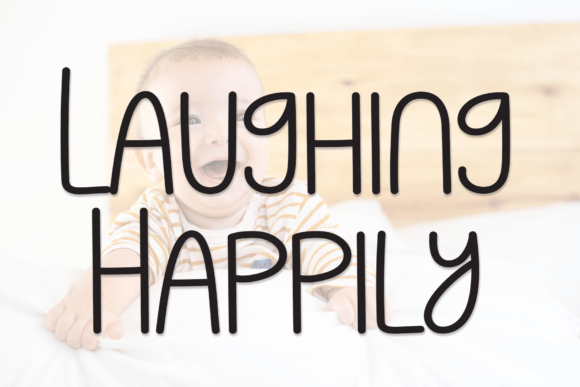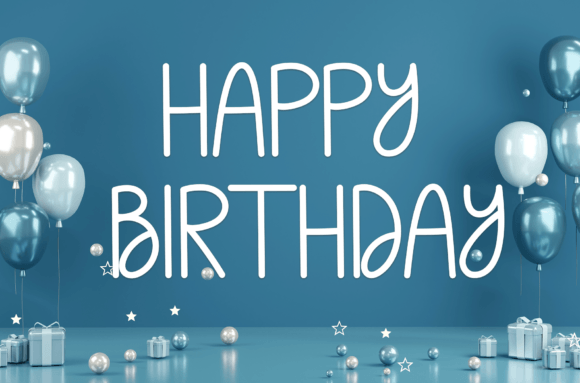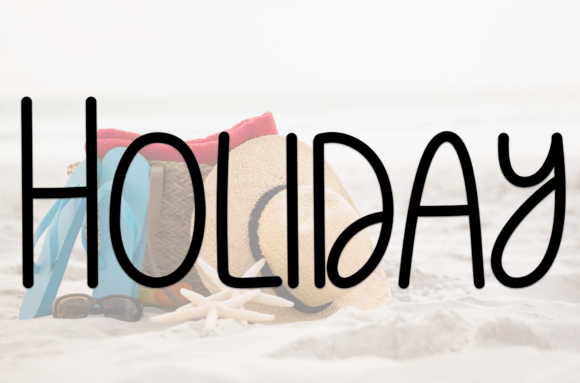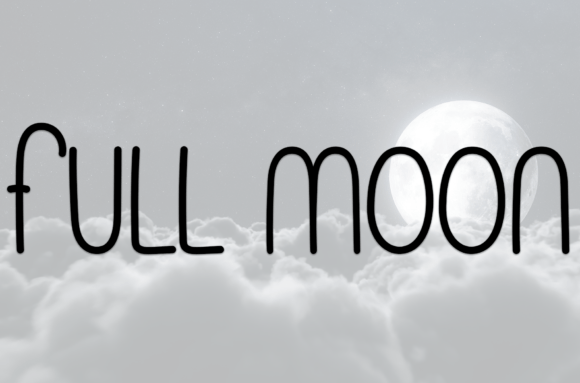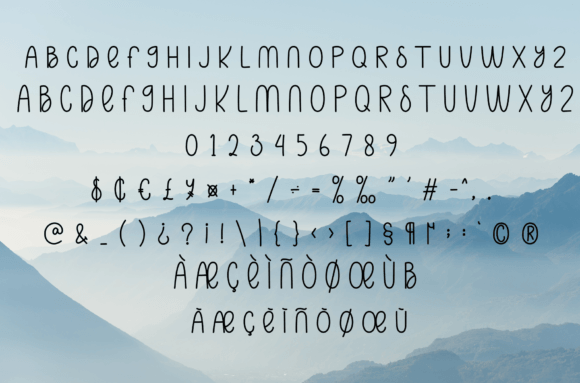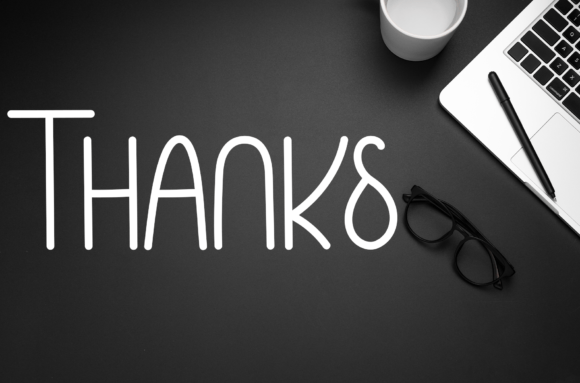
Laughing Happily Font
What Is Laughing Happily Font?
Laughing Happily is a sweet and friendly handwritten font that brings a playful, joyful feel to your designs. Its soft curves and natural flow make any text look warm and inviting. Whether you want to share a personal message or create something eye-catching, this font is a perfect choice.
From the first glance, you’ll notice how it gives every word a touch of happiness and charm.
Laughing Happily is highly versatile and works beautifully in many situations. For wedding invitations, it adds a heartfelt, elegant feel that makes every detail look special. Whether you’re going for a modern or classic theme, this font blends in seamlessly.
It’s also a wonderful option for greeting cards. Whether you’re sending birthday wishes, thank-you notes, or holiday greetings, Laughing Happily helps you say it in a warm, sincere way.
If you design social media posts, this font brings a cheerful look that draws attention. Use it for quotes, announcements, or sales promotions, and your content will feel fresh and approachable.
On product packaging and labels, Laughing Happily adds a handmade, friendly touch that makes any brand look authentic and unique. From small business projects to personal crafts, this font is an excellent fit.
Why Choose Laughing Happily Font?
There are many reasons to make Laughing Happily part of your font library. First, it stays clear and easy to read, no matter the size. From big headlines to small captions, every letter remains neat and balanced.
It pairs beautifully with serif or sans-serif fonts, so you can create layouts that look cohesive and polished.
This font is fully PUA encoded, meaning you can access all swashes, alternates, and special characters easily—no extra tools needed. Customizing your text becomes quick and fun.
Laughing Happily adds warmth, personality, and joy to any project. Even the simplest layout feels more welcoming with its friendly handwritten style. Whether you’re designing wedding stationery, social media graphics, or product packaging, it helps your work look professional and memorable.
Using a high-quality handwritten font shows you care about every detail, which builds trust and connection with your audience.
Laughing Happily isn’t just a font—it’s a way to bring cheer and authenticity to everything you create. From invitations and cards to logos and labels, it adds a personal touch that makes your designs stand out.